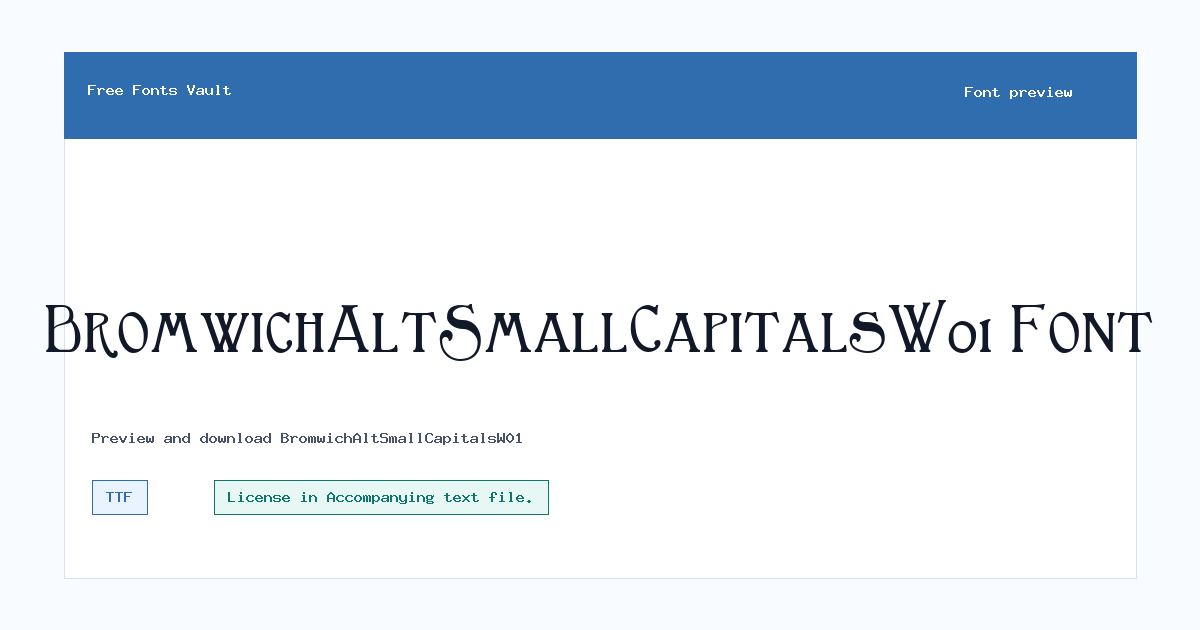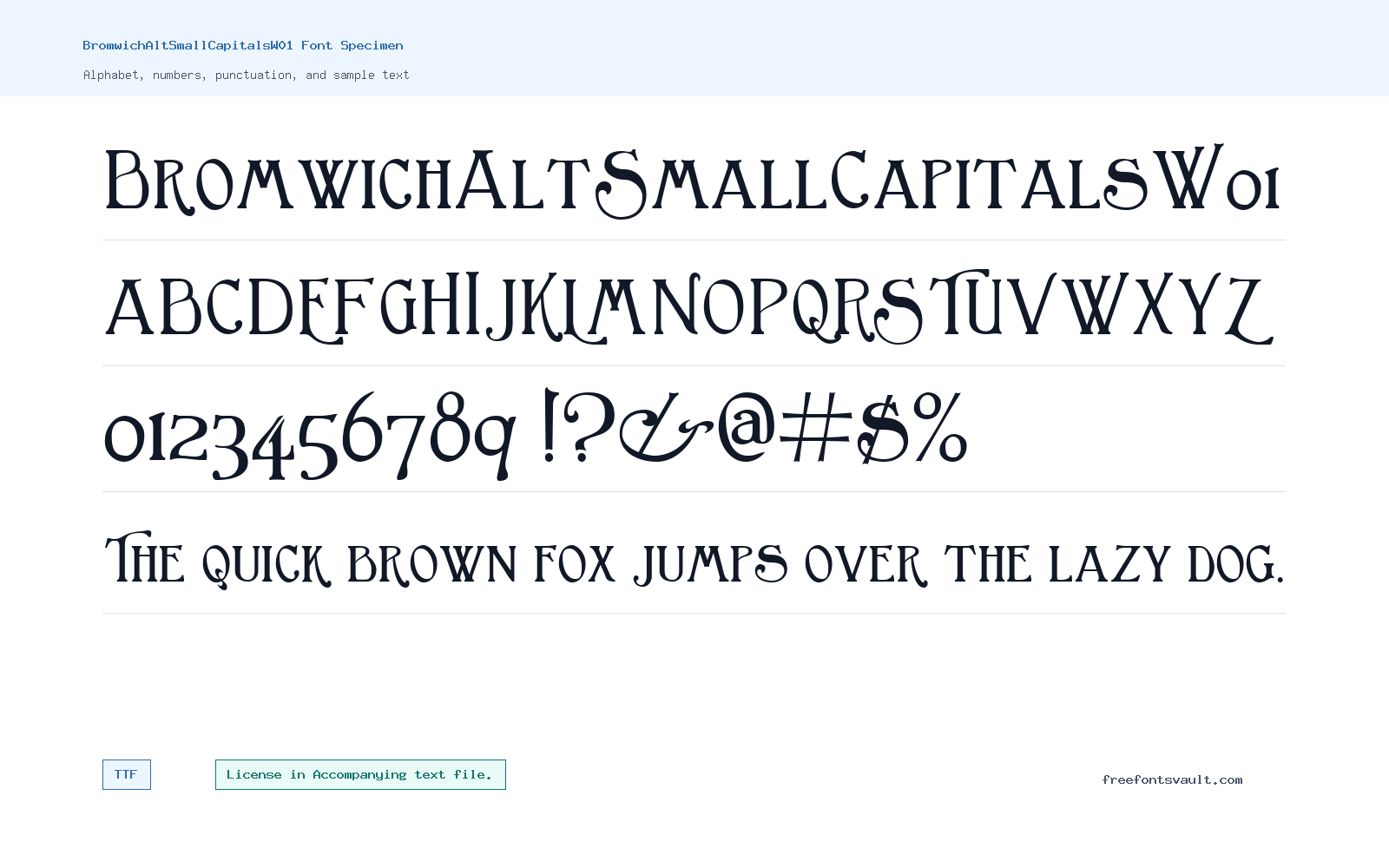
BromwichAltSmallCapitalsW01
- Designer Greater Albion Typefounders
- Foundry Greater Albion Typefounders
BromwichAltSmallCapitalsW01 font.
BromwichAltSmallCapitalsW01 is a Greater Albion Typefounders TTF font with a small-capitals feel for headings, labels, invitations, certificates, and formal display text.
About BromwichAltSmallCapitalsW01
BromwichAltSmallCapitalsW01 is best approached as a titling and decorative text face. The name points toward an alternate small-capitals style, which can give short lines a formal, balanced rhythm without the casual feel of mixed lowercase text.
Use it when the words need to feel compact, composed, and slightly traditional: nameplates, invitation lines, certificate text, editorial labels, bookish headings, formal menu sections, and decorative branding drafts. Small-capital fonts can look elegant, but they need space. Tight tracking or very small sizes can make the texture feel crowded.
Because the design leans toward small-capital texture, it can make even simple words feel more ceremonial. That is useful for invitations and labels, but it also means the font should be used with restraint. Let it handle names, headings, and short decorative phrases, then switch to a calmer text face when the reader needs to absorb details.
- Small-capitals style suggested by the family name
- Formal texture for short headings and decorative labels
- Works best with generous tracking and moderate-to-large sizes
- Credited to Greater Albion Typefounders
- Invitations, certificates, nameplates, and formal headings
- Editorial labels, menu sections, packaging accents, and bookish designs
- Short decorative lines where capital-led rhythm is useful
- Branding drafts that need a traditional or composed voice
Greater Albion Typefounders is listed as both designer and foundry for BromwichAltSmallCapitalsW01.
What style is this font?
The name suggests a small-capitals style suited to short formal display text.
What projects suit this font?
It suits invitations, certificates, nameplates, editorial labels, menu headings, and decorative title lines.
Who is credited for the font?
Greater Albion Typefounders is listed as the designer and foundry.